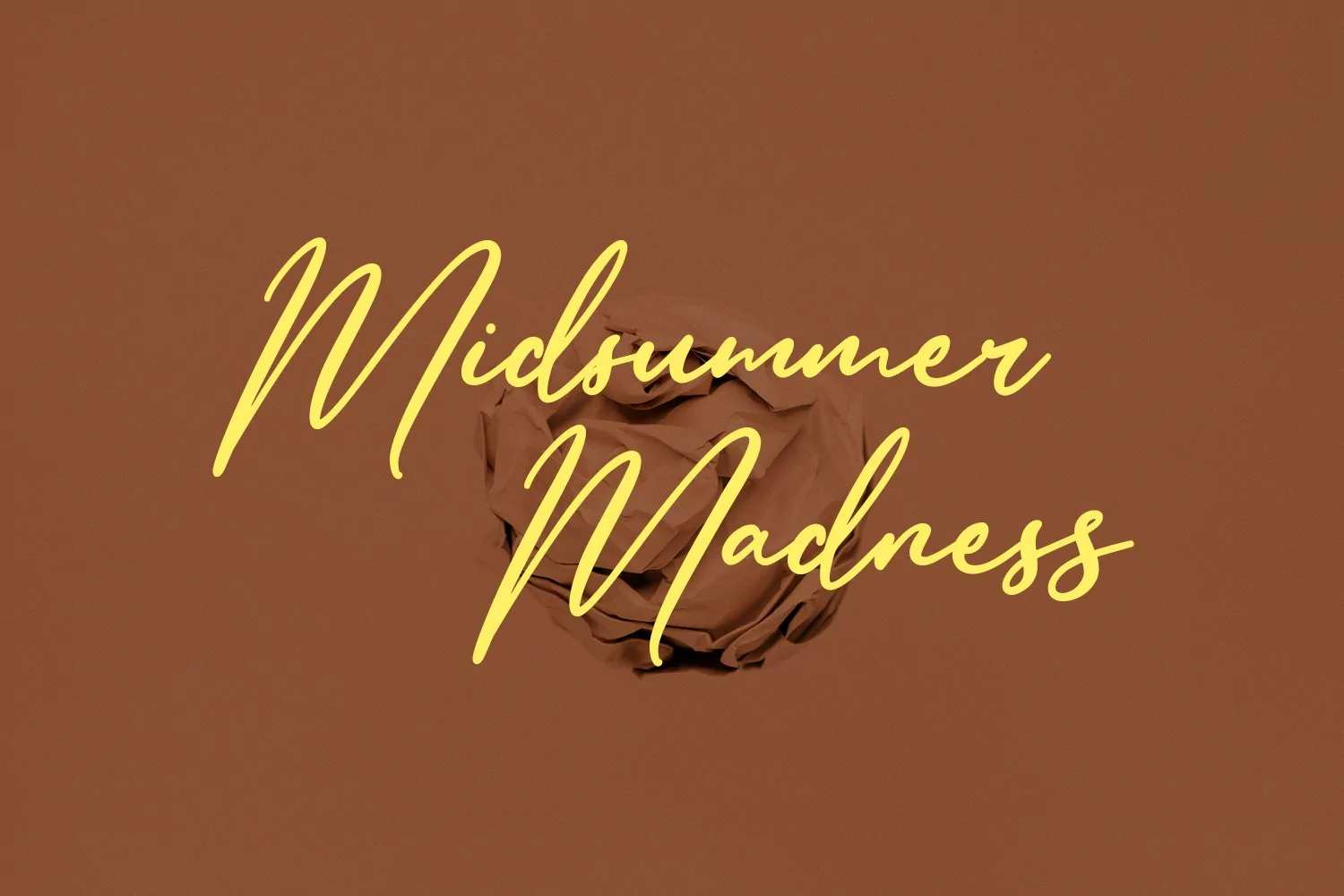
Reliances is casual script font, with clean high contrast stroke, slanted and fun character. It has Opentype features ligatures of character, To give you an extra creative work. Reliances slanted script font support multilingual more than 100+ language. This font is good for logo design, Social media, Movie Titles, Books Titles, a short text even a long text letter and good for your secondary text font with sans or serif. Make a stunning work with Reliances font.